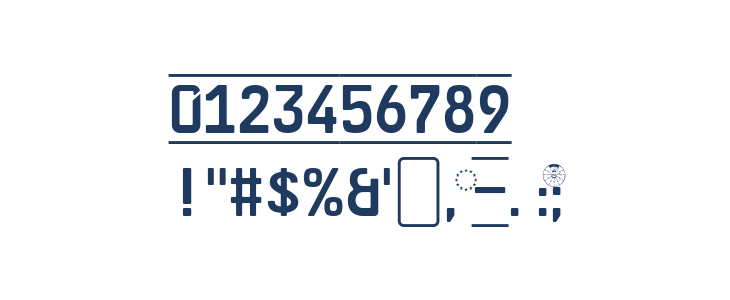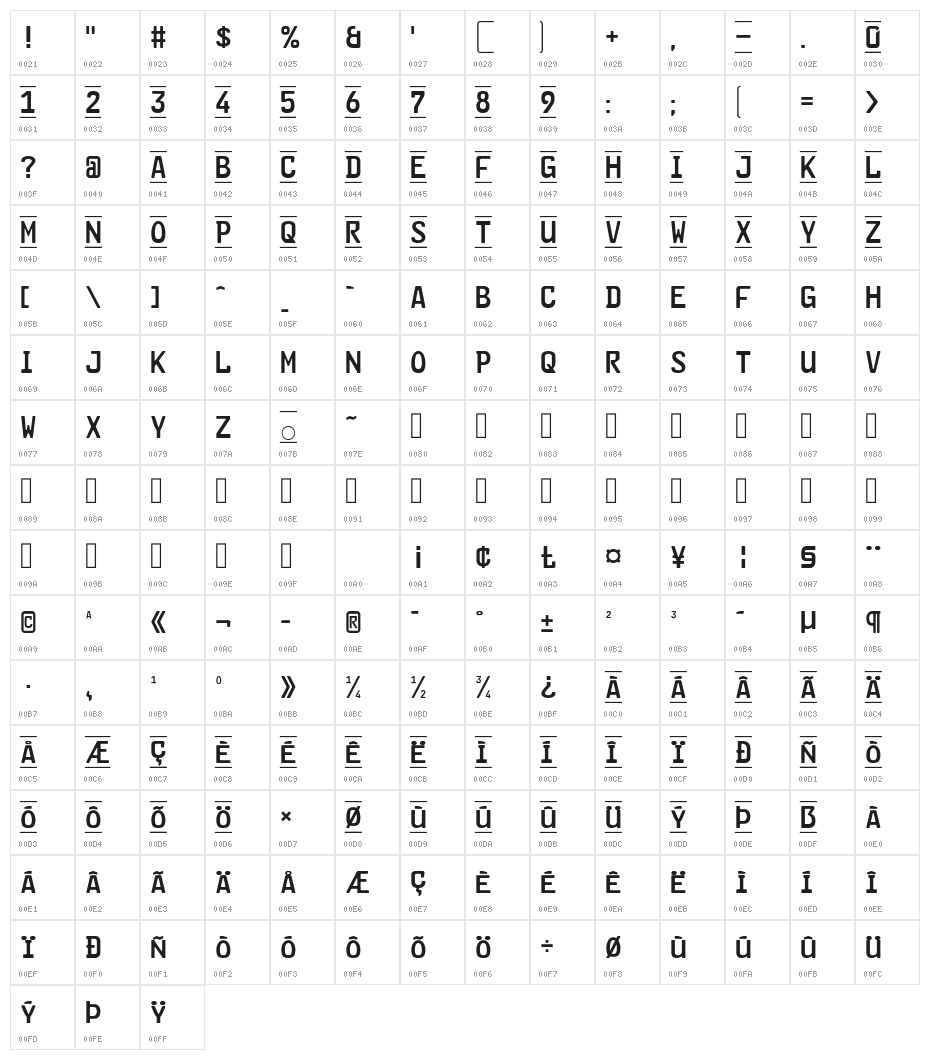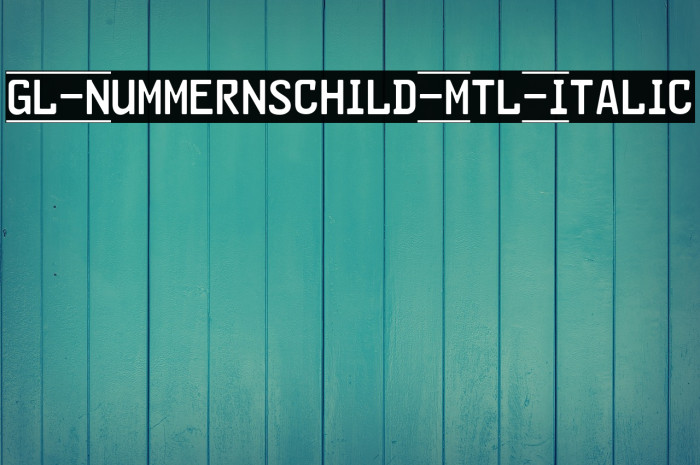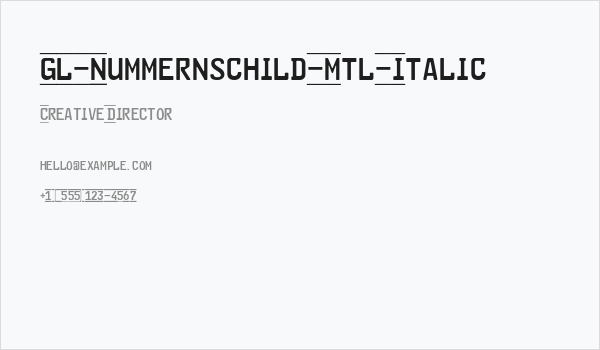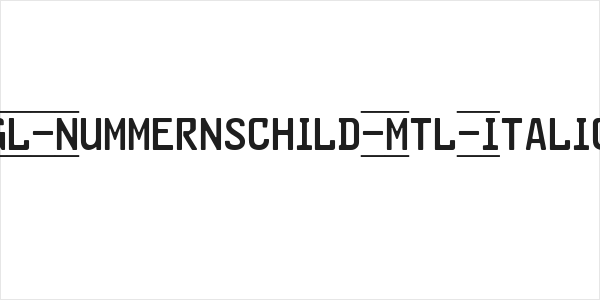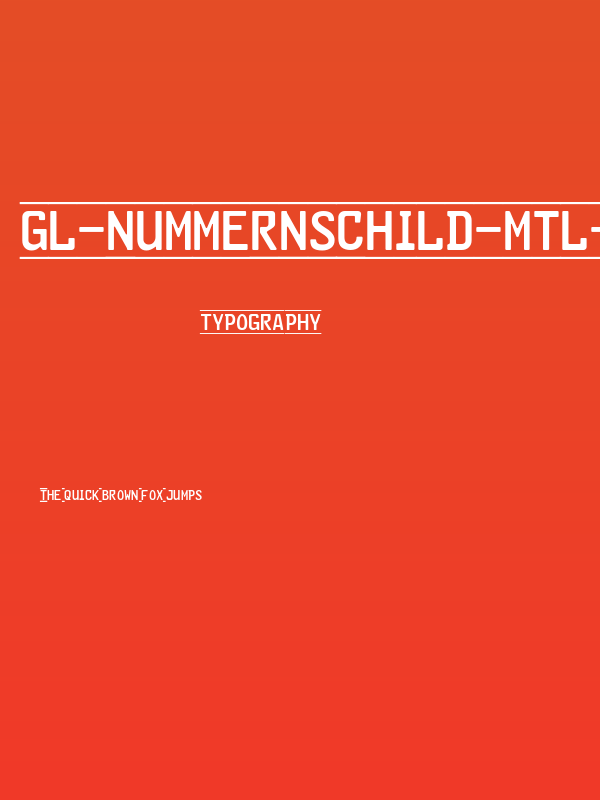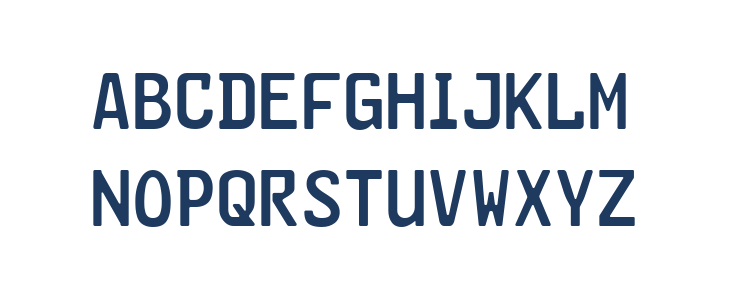
GL-Nummernschild-Mtl-Italic Font
GL-Nummernschild-Mtl-Italic Description
This font features a bold, geometric design with a modern and industrial feel. The uppercase letters are structured with sharp, clean lines and a consistent stroke width, giving them a robust and authoritative appearance. The numerals are equally bold and clear, making them highly legible. The special characters maintain the same geometric style, ensuring uniformity across the font. The overall design is straightforward and functional, ideal for applications where clarity and impact are essential.
| Use Case | Headlines, Signage, Branding |
| Proposed Projects | Ideal for signage, branding, and any project requiring a strong, clear typeface. |